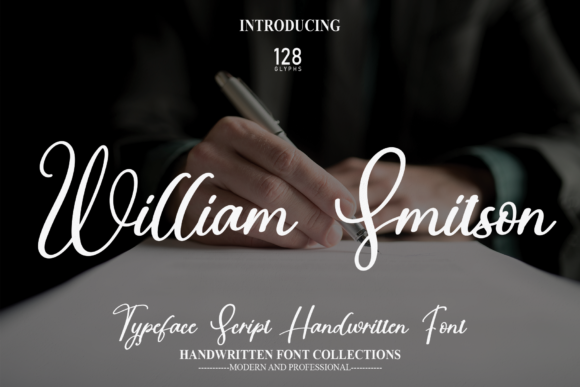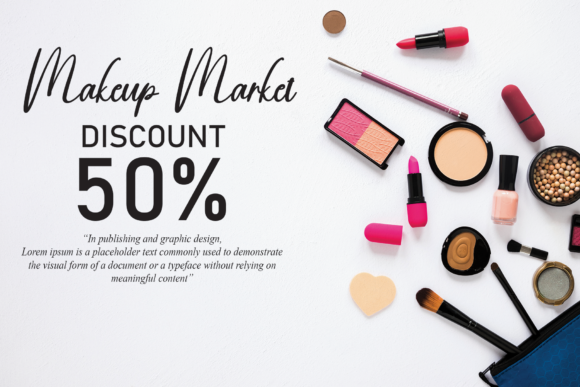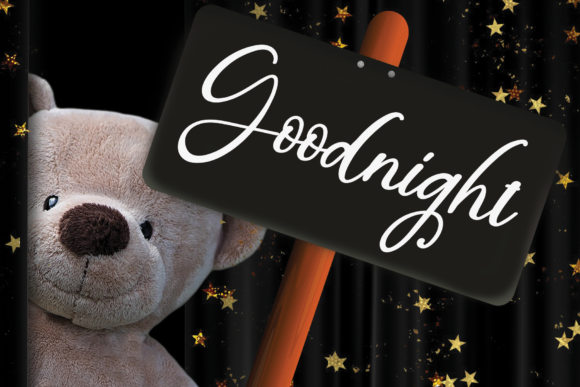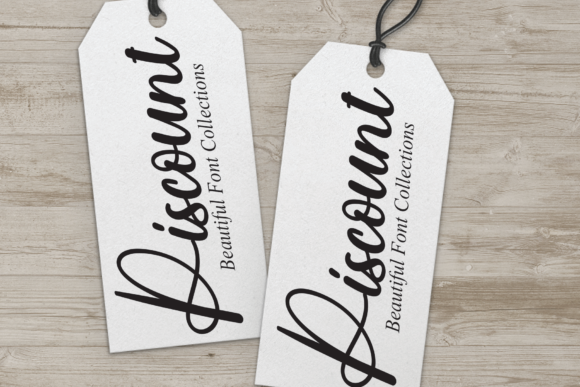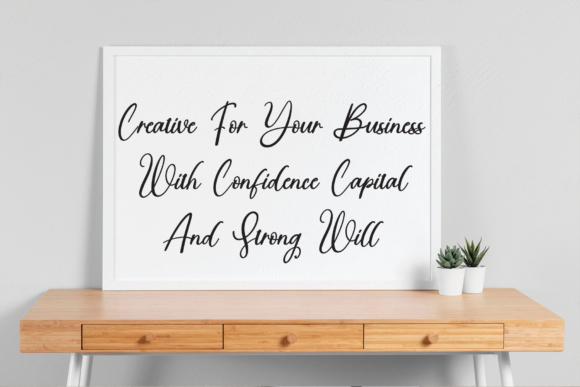
About William Smitson Font
William Smitson is a refined and contemporary script font that exudes an air of delicacy and sophistication. Its stylish and fashionable design makes it an excellent choice for a wide array of branding ventures, encompassing logos, t-shirt printing, and other creative projects. This font’s versatility ensures that it will appear exceptionally striking across diverse contexts.
The carefully crafted letterforms of William Smitson convey a sense of elegance and modernity, adding a touch of refinement to your designs. Whether you’re working on a branding campaign, fashion-related project, or crafting unique merchandise, this font possesses the inherent capability to elevate your visual communication.
One of the notable attributes of William Smitson is its adaptability – it can seamlessly integrate into both digital and print environments. Its distinctive flair captures attention and lends a distinct personality to your creations. The font’s charismatic demeanor guarantees that it stands out, making an unforgettable impression on your target audience.
Incorporating William Smitson into your projects enables you to tap into a world of possibilities. Whether you’re designing logos, experimenting with typography, or seeking a font that effortlessly combines elegance and contemporary aesthetics, William Smitson offers a comprehensive solution.
Its ability to harmonize elegance with a modern edge positions it as a valuable asset in your design toolkit.